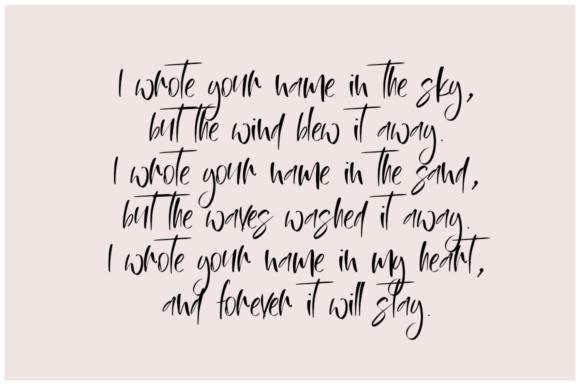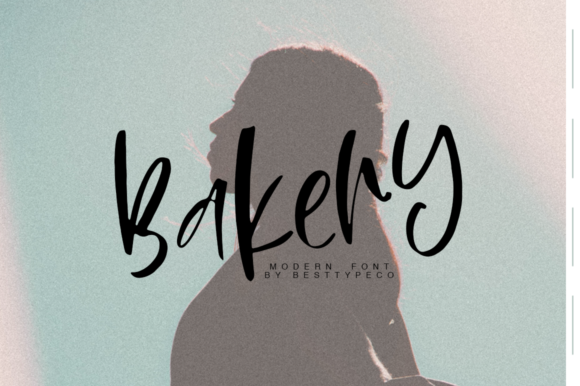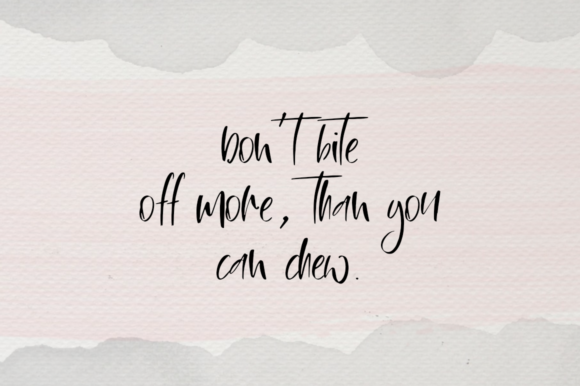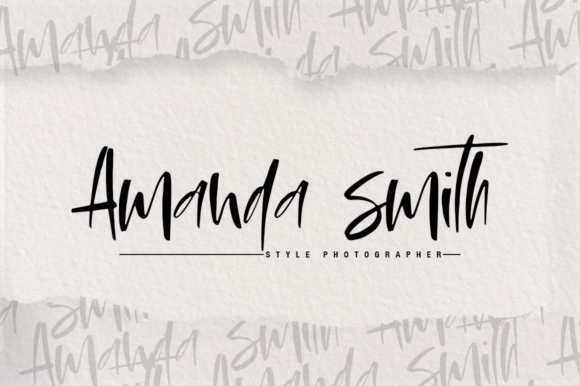
Bakery Font: Elevate Your Designs with a Light and Airy Handwritten Style
Are you tired of using the same old fonts in your designs? Do you want to add a touch of elegance and whimsy to your creative projects? Look no further than the Bakery font, a stunning handwritten font with an incredibly light feel that’s sure to add a unique spark to any design.
What is Bakery Font?
Bakery font is a beautiful, handcrafted font that’s perfect for designers and crafters looking to add a personal touch to their work. With its delicate, cursive lines and airy feel, this font is ideal for creating stunning text-based designs that are sure to capture attention.
Key Features of Bakery Font
- Handwritten style: Bakery font is a genuine handwritten font, crafted with love and care to give your designs a personal touch.
- Incredibly light feel: The font’s light weight and airy texture make it perfect for designs where you want to convey a sense of elegance and sophistication.
- Unique and distinctive: With its one-of-a-kind design, Bakery font is sure to set your work apart from the crowd and make it instantly recognizable.
- Versatile: Whether you’re designing a logo, creating a social media graphic, or crafting a beautiful wedding invitation, Bakery font is the perfect choice.
Why Choose Bakery Font?
There are many fonts to choose from, but Bakery font stands out from the rest for several reasons:
- Easy to read: Despite its delicate lines, Bakery font is incredibly easy to read, making it perfect for body text and headings.
- Highly versatile: This font can be used for a wide range of design projects, from digital graphics to print materials.
- Timeless appeal: The classic, elegant design of Bakery font ensures that it will never go out of style, making it a great investment for designers and crafters.
Bakery Font in Action
Imagine using Bakery font in a variety of design projects:
- Wedding invitations: Create beautiful, elegant wedding invitations that set the tone for a special day.
- Social media graphics: Use Bakery font to create eye-catching social media graphics that showcase your brand’s personality.
- Logos and branding: Create a unique and memorable logo that incorporates the elegant lines of Bakery font.
- Stationery and cards: Add a touch of elegance to your stationery and cards with Bakery font.
Bakery font is a stunning handwritten font with an incredibly light feel that’s perfect for designers and crafters looking to add a unique spark to their creative projects. With its delicate lines, airy texture, and timeless appeal, this font is sure to elevate your designs and make them stand out from the crowd. So why wait? Download Bakery font today and start creating beautiful, elegant designs that showcase your creativity and style!